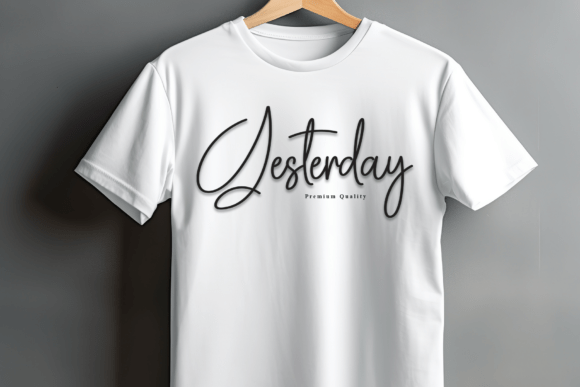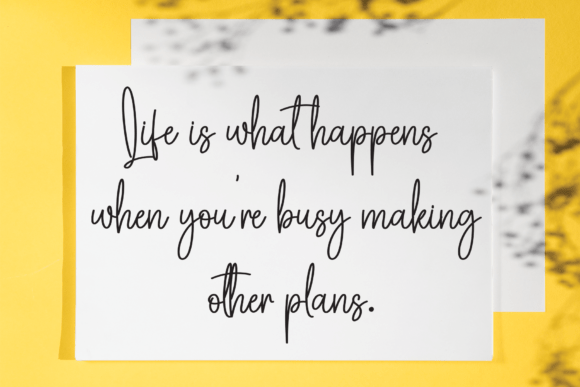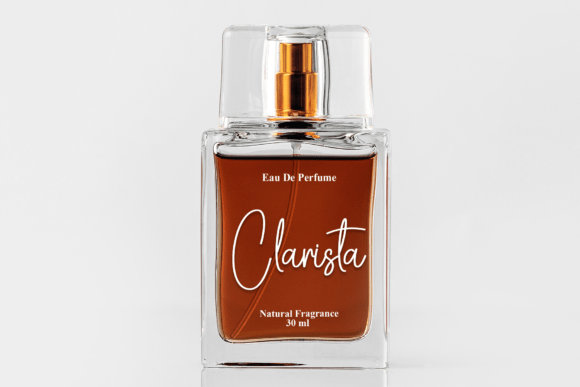
Introduction to Patternly Font
Have you ever sat down at your desk, surrounded by blank sheets of paper and an endless sea of design possibilities? The blank canvas can be both exhilarating and intimidating, but it’s in these moments that we discover our true creative potential. For designers, the search for the perfect font is a crucial step in bringing our ideas to life.
That’s where Patternly Font comes in – a stunning addition to any design resource, offering a touch of elegance and personality to your projects. With its smooth, flowing strokes and natural handwritten feel, it’s the perfect choice for logos, invitations, greeting cards, and more.
Whether you’re working on a high-quality branding project or a simple social media graphic, the Patternly Font adds a level of sophistication and authenticity that’s hard to find elsewhere. And the best part? It’s available for free download, making it a valuable asset for any designer looking to elevate their creative projects.
Key Features of Patternly Font
- Designed with a focus on versatility, making it an excellent choice for various design projects and applications.
Honest Review: Patternly Font
As a designer, I’m always on the lookout for high-quality design resources to elevate my creative projects. Recently, I stumbled upon the Patternly Font, and I’m excited to share my honest review with you.
- ✨ High-quality design: The Patternly Font boasts a sophisticated and modern aesthetic, perfect for a variety of creative projects.
- ✨ Transparent background: The font’s transparent background makes it easy to layer and customize, giving me more flexibility in my designs.
- ⚠️ Limited font styles: While the Patternly Font is high-quality, it’s limited to a few font styles, which may not be enough for designers who require a wider range of options.
- ⚠️ No advanced features: The font doesn’t offer any advanced features, such as ligatures or contextual alternates, which may be a drawback for some designers.
Overall, I’m impressed with the Patternly Font, and I think it’s a great addition to any designer’s toolkit. While it has its limitations, the high-quality design and transparent background make it a valuable resource for any creative project.
Patternly Font
Design Resource for Creative Projects
The Patternly Font is a versatile design resource ideal for various creative projects. This high-quality font offers a transparent background, making it perfect for use in Canva, Adobe Photoshop/Illustrator, or PowerPoint/Word.
Tips for Getting the Most Out of Patternly Font
To maximize the potential of the Patternly Font, consider the following tips:
- Experiment with different font sizes and colors to achieve the desired effect.
- Combine the Patternly Font with other design elements to create visually appealing designs.
- Use the transparent background feature to create layered designs.
The Patternly Font is commonly used in various design projects, including:
- Branding and logo design.
- Infographics and data visualizations.
- Marketing materials and advertising campaigns.
Alternatives to Patternly Font